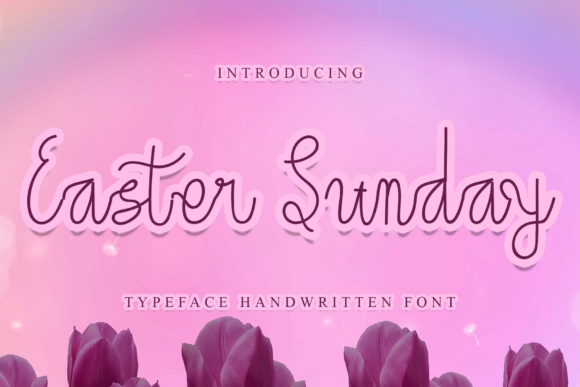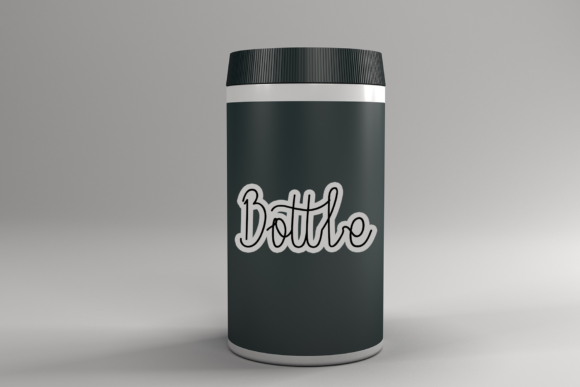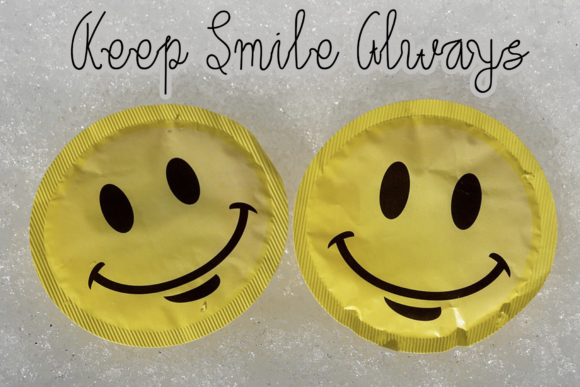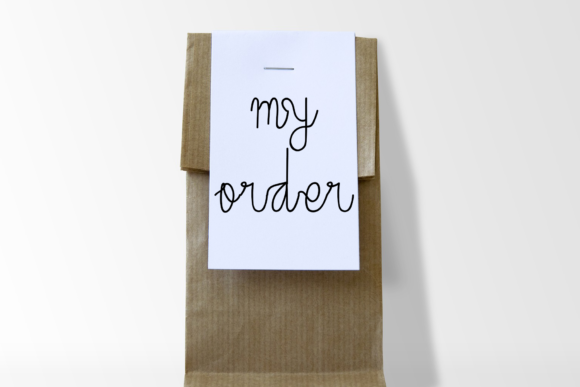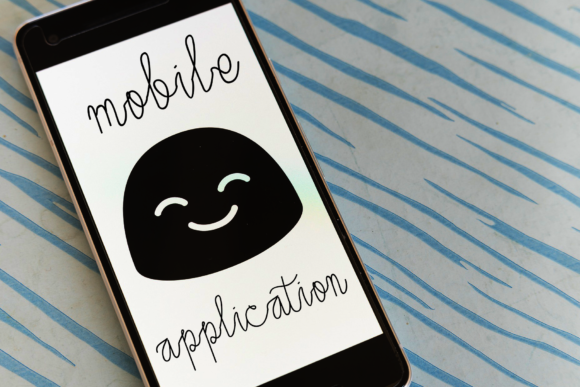
Easter Sunday Font
About Easter Sunday Font
Easter Sunday is a modern handwritten font that is readable, thin and stylish. It is defined by smooth characters and is perfect for fashion branding or editorial designs. Add it confidently to your projects, and you won’t be disappointed.